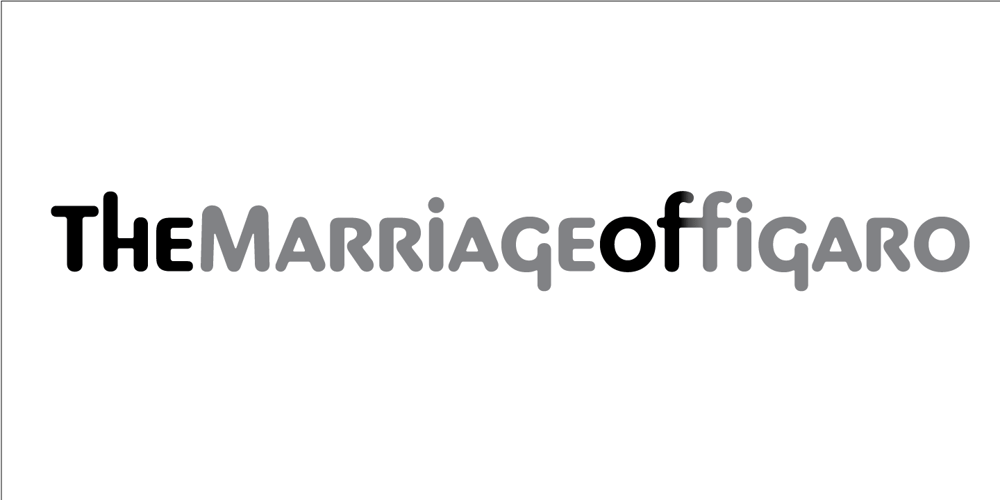
Pinot Grigio Modern Font Family was designed by Alan Meeks and published by Alan Meeks. Pinot Grigio Modern contains 5 styles and family package options. A modern update of the unique sans display font Peignot originally designed in 1937 by A. M. Cassandre. The font has been modernised by making all the terminals soft and making a larger x height and lessening the contrast between thick and thin.